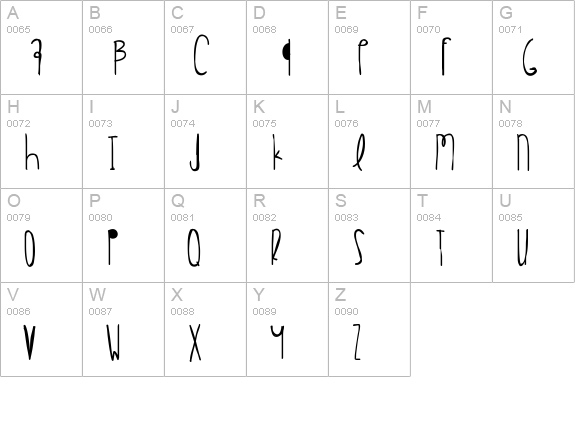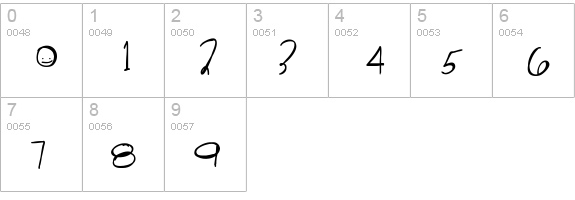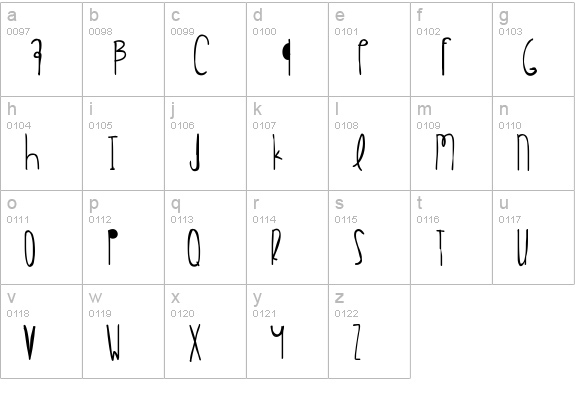
HappyEaster Font Details
HappyEaster font is a delightful and playful typeface that captures the essence of the Easter season. With its whimsical and charming letterforms, this font is perfect for adding a touch of joy and cheer to any design project related to Easter celebrations, such as greeting cards, invitations, posters, and more. Featuring a unique combination of rounded edges and decorative elements, HappyEaster font exudes a sense of warmth and happiness. The letters are beautifully crafted, each stroke carefully designed to evoke the spirit of Easter, making it a perfect choice for conveying the message of renewal, hope, and new beginnings. What makes HappyEaster font even more appealing is that it is completely free to download. Available exclusively at FontsMarket.com, this font offers a great opportunity to enhance your Easter-themed designs without any cost. Whether you are a professional designer or a DIY enthusiast, HappyEaster font is a valuable addition to your font collection. With its versatility and eye-catching design, HappyEaster font can be used in a variety of creative projects. From creating captivating headlines to adding a touch of whimsy to your social media posts, this font will make your Easter-related content stand out from the crowd. So why wait? Download HappyEaster font now and let the playful and joyful spirit of Easter shine through your designs. With its free availability at FontsMarket.com, you can start using this delightful font right away without any hassle. Spread the happiness and celebrate Easter in style with HappyEaster font!